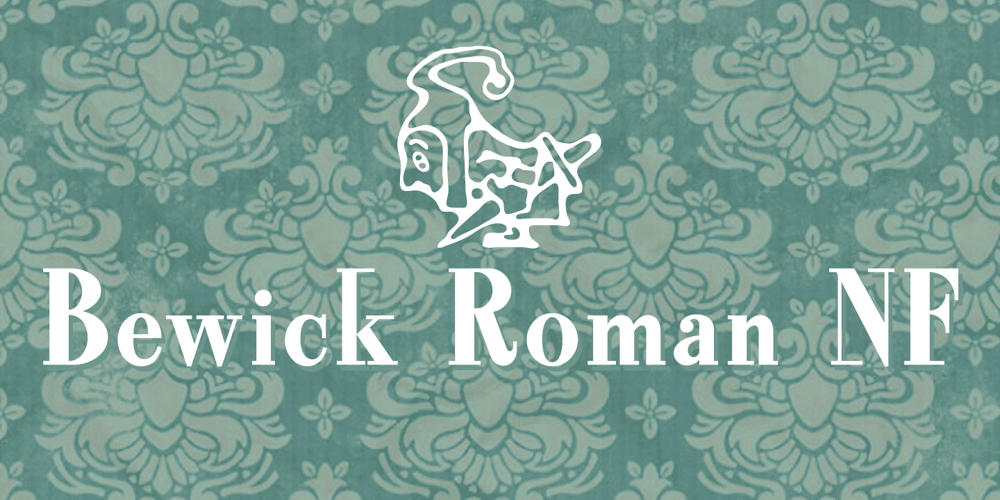
Bewick Roman NF
Bewick Roman NF Font Family was designed by Nick Curtis and published by Nick’s Fonts. Bewick Roman NF contains 1 styles and family package options. In 1905, artist and illustrator Will Bradley devised the pattern for this charming face. A little bit quirky and a whole lot of fun. Both versions support the Latin 1252, Central European 1250, Turkish 1254 and Baltic 1257 codepages.